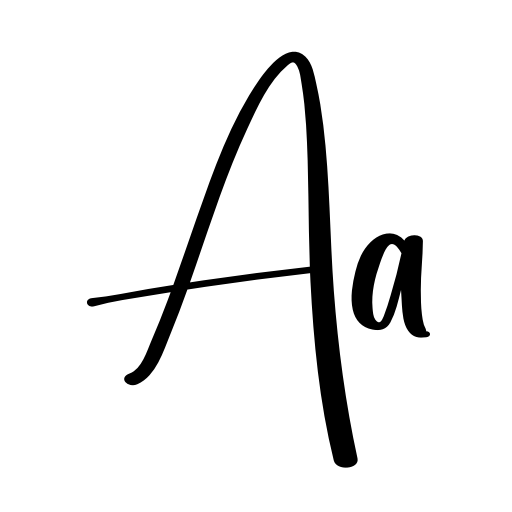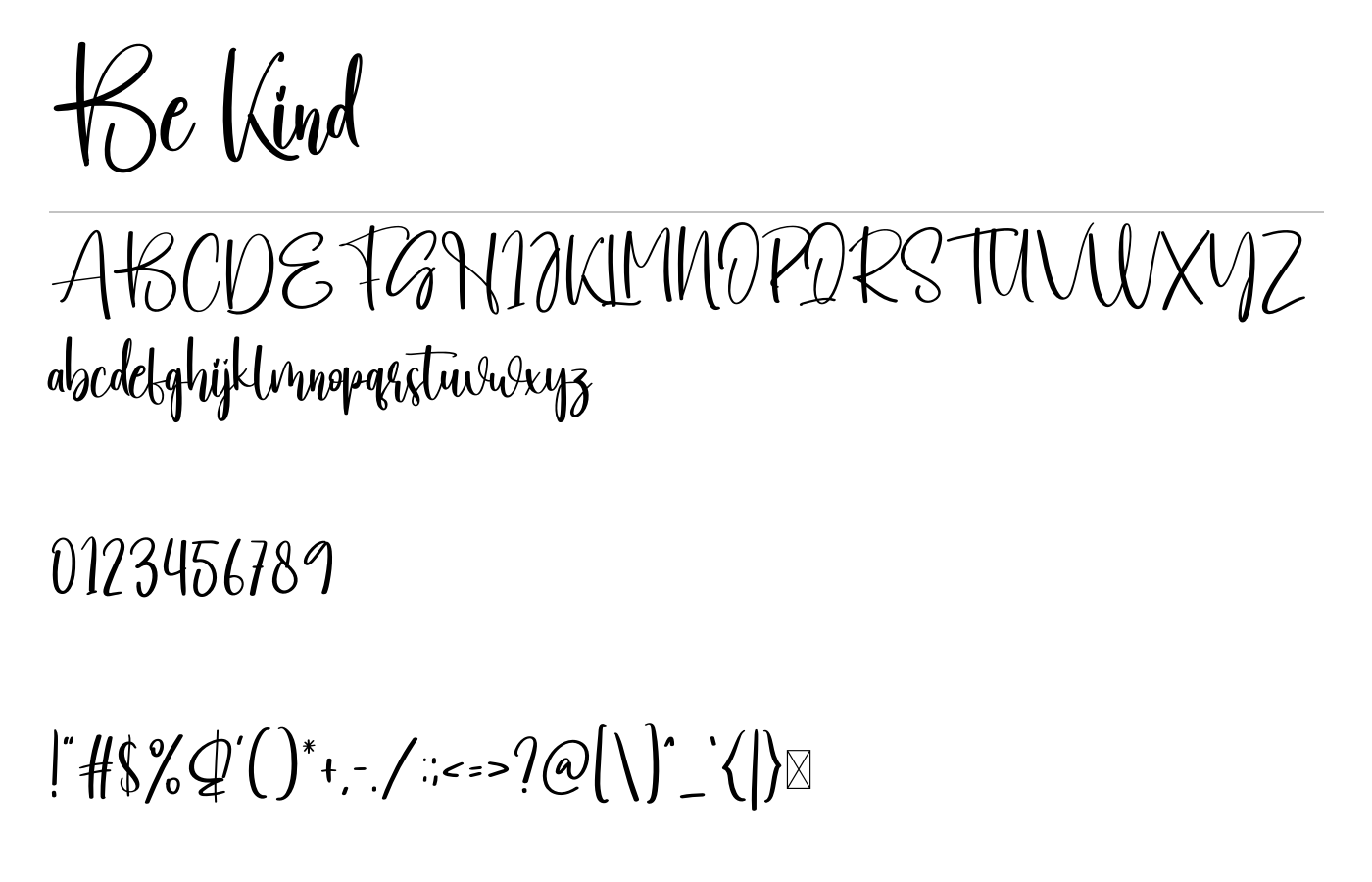
Be Kind is a playful and elegant handwritten script font with a casual, friendly vibe. Its tall, slender letterforms feature smooth, flowing strokes with moderate contrast, creating a warm and approachable feel perfect for personal branding, invitations, and creative projects. This font works well for headlines and display uses where a charming, human touch is desired.
Be Kind Font